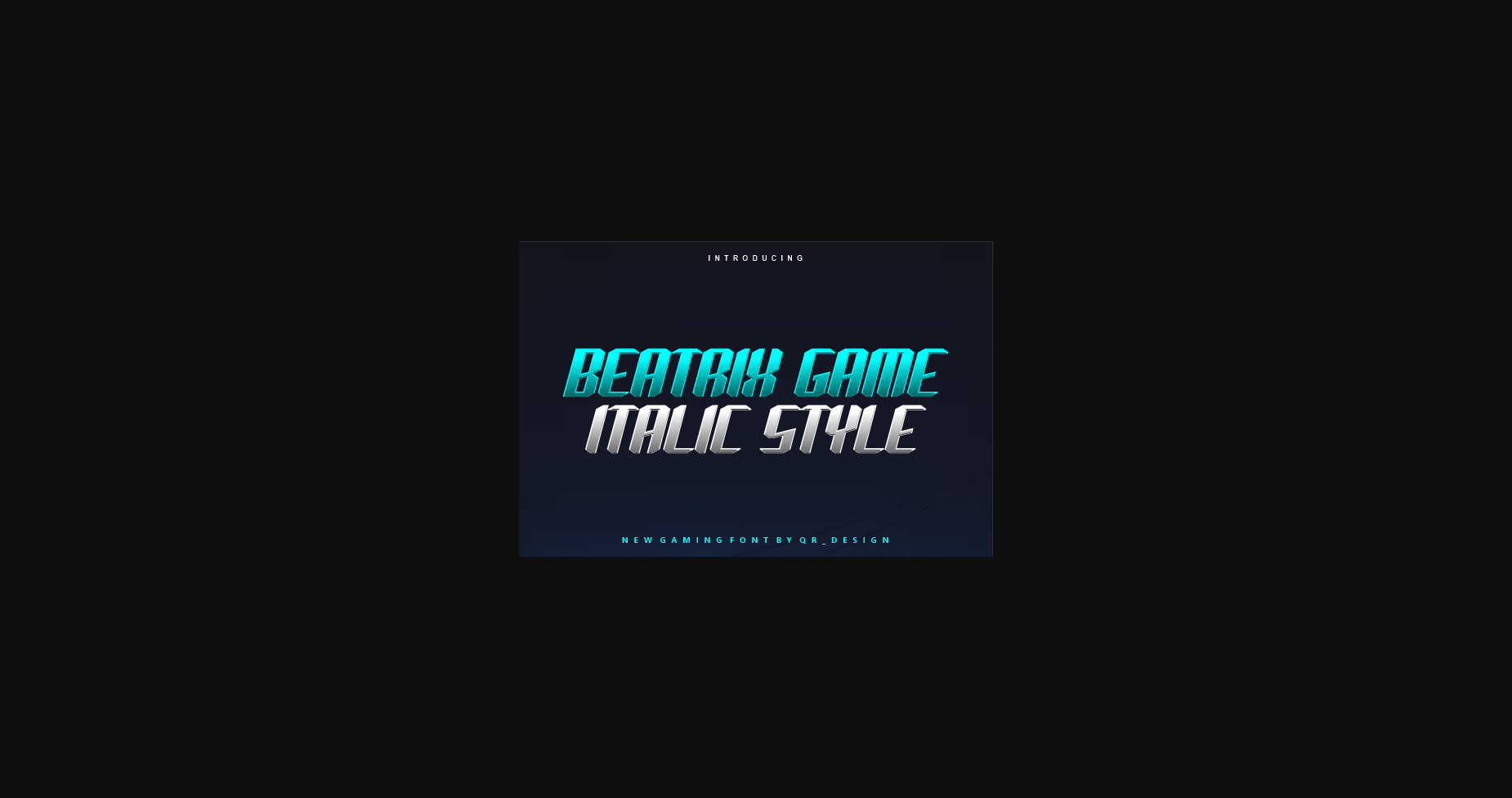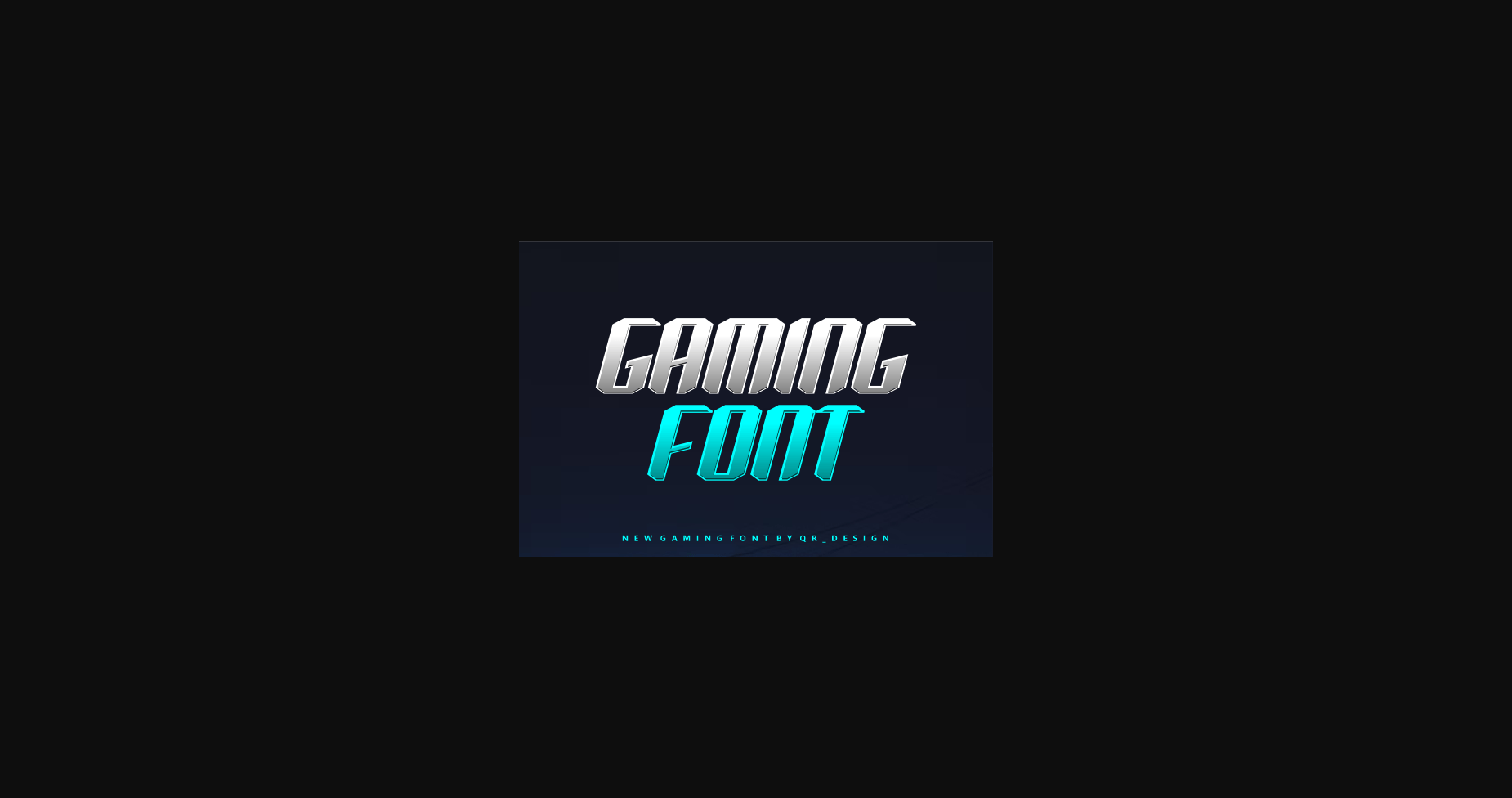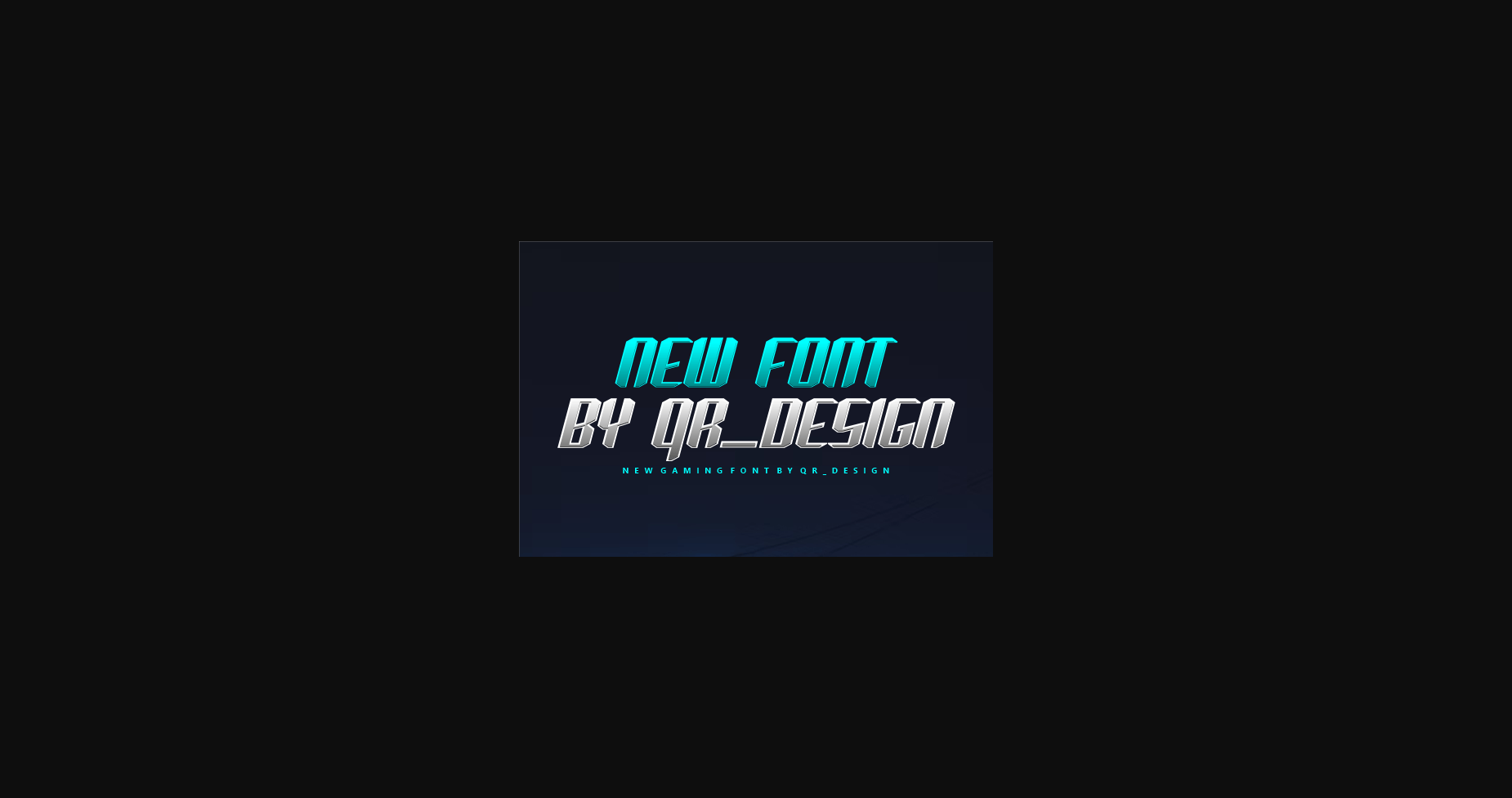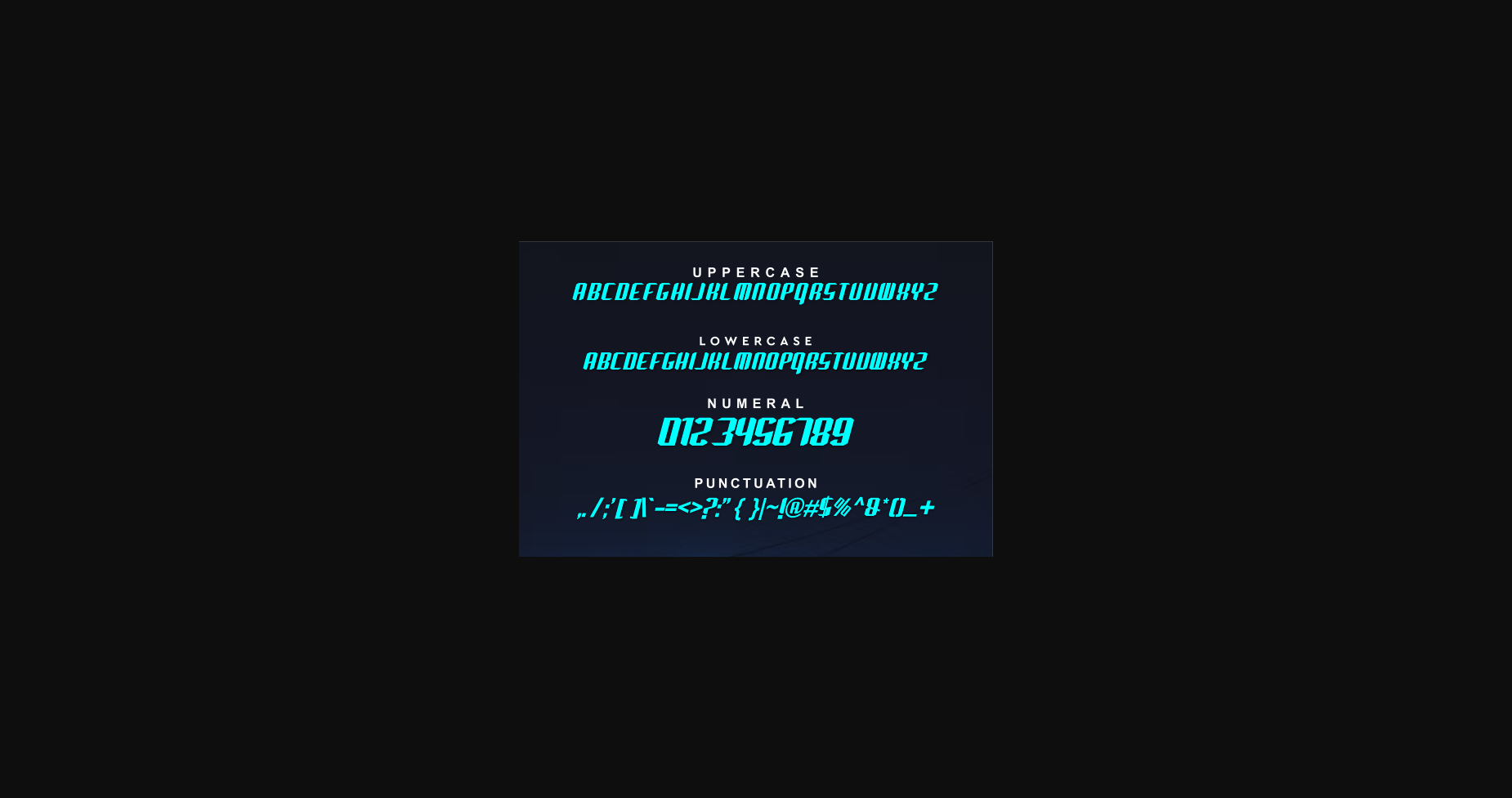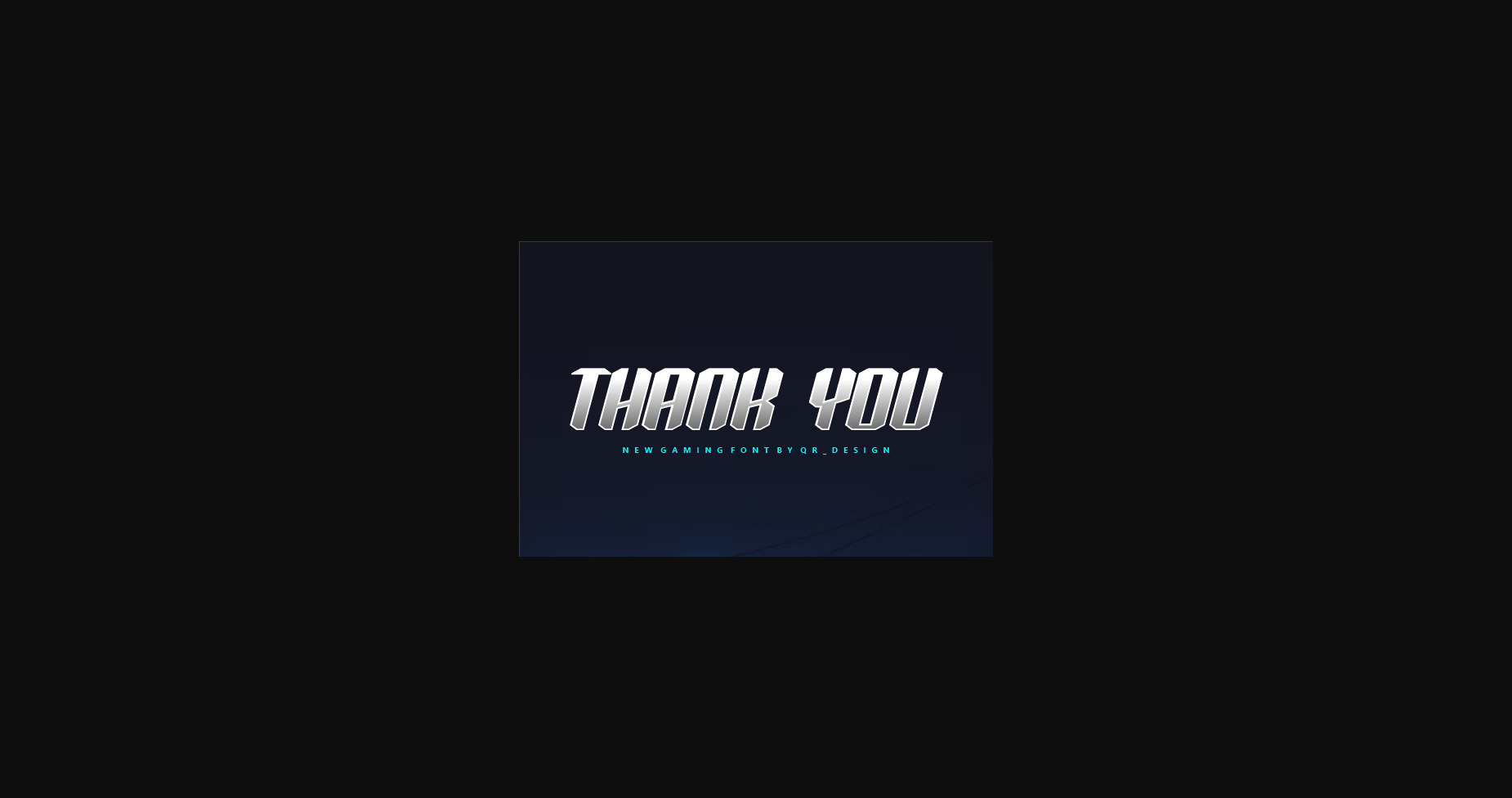
About Beatrix Game Font
Beatrix Game Italic Style – Gaming Font.
Is a bold and authentic display font. The font is suitable for any branding project like logo, t-shirt printing, esport, and many more. Outstanding in a wide range of contexts.